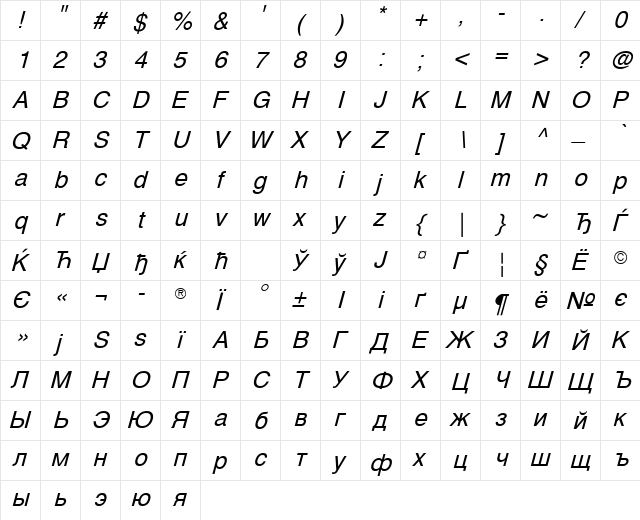
Svoboda Italic
Design Context for Svoboda Typeface
Svoboda offers clean, dependable letterforms without strong stylistic allegiance, making it a practical choice for designers who need flexibility. The dynamic lean of this cut emphasises speed and emphasis in any layout.
Pro Tip: Try Svoboda for annotation and caption copy alongside an upright companion — the contrast in angle creates a dynamic but ordered typographic system.